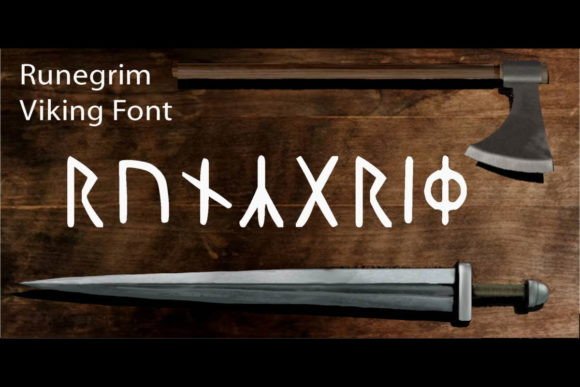
Introducing the extraordinary Runegrim Font, a captivating display font that will transport your designs to the mystical world of Ancient Viking Rune Script. Created by the talented wisudyantoro, this font is not just any ordinary font; it's a gateway to creativity and individuality.
Are you looking to elevate your designs and make a lasting impression? Look no further! Runegrim Font is the perfect choice for those seeking the best fonts for script tattoos. Its intricate and bold style will bring a touch of ancient wisdom to your body art, making it truly unique and meaningful.
But that's not all! Runegrim Font is not limited to tattoos alone - it's a versatile font that can be used for various purposes. Whether you're creating a logo for your clothing brand, designing apparel, or crafting one-of-a-kind handmade items, this font will add a touch of authenticity and charm to your creations.
One of the most remarkable features of Runegrim Font is its user-friendliness. Unlike other ancient fonts that require familiarity with complex Unicode formats, Runegrim Font is designed with simplicity in mind. It's perfect for individuals who want to incorporate the beauty of ancient script into their designs without the hassle of deciphering intricate coding.
Unlock your creativity and embark on a journey through time with Runegrim Font. Let the power of ancient runes infuse your designs with a sense of mystery and enchantment. With its captivating curves and intricate details, this font will captivate the hearts of your audience and leave a lasting impression.